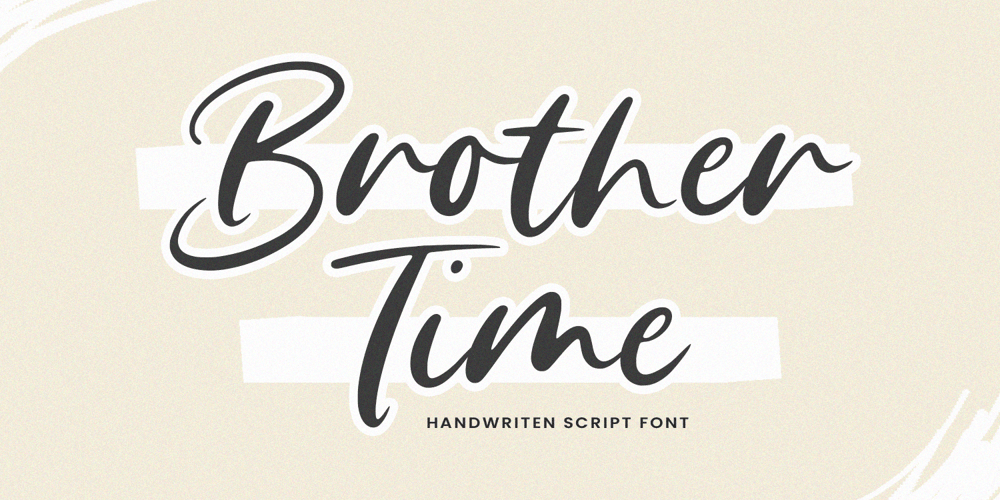
Brother Time
Brother Time font
Brother Time Font Family was designed by Wara Sigit Tri Pamungkas and published by Timurtype. Brother Time contains 1 styles and family package options. Introducing by Timur typeProudly Present, Brother Time A Handwritten Script FontBrother Time is perfect for product packaging, branding project, megazine, social media, wedding, or just used to express words above the background.This Brother Time font includes:Brother Time multilingual support.Embelish your designs with our original fonts.Enjoy the font,Thank you!